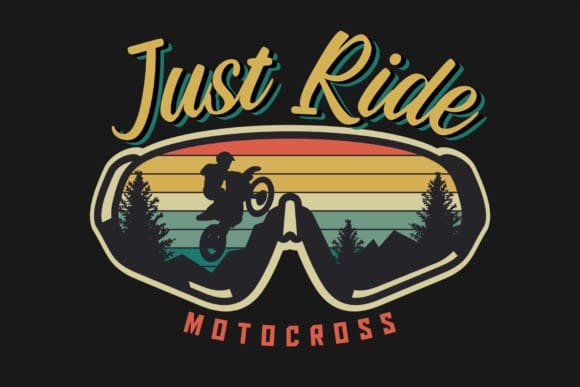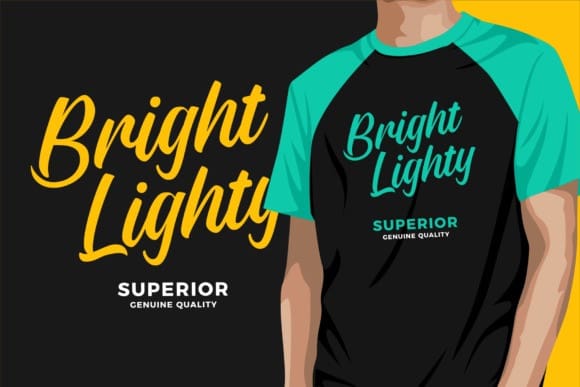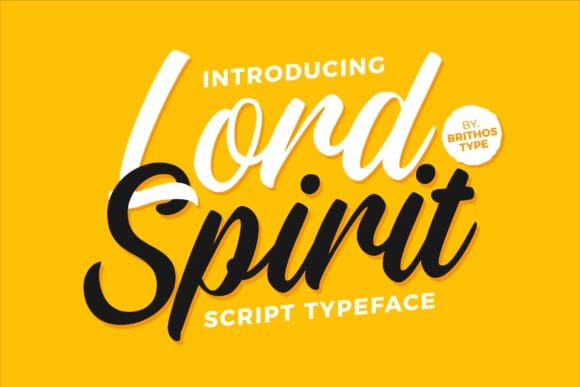
Lord Spirit Font
Lord Spirit Font is an assertive and bold brushed handwritten font. It is suitable for complementing any branding, product packaging, invitation, quote, t-shirt, label, poster, logo that you wish to develop.